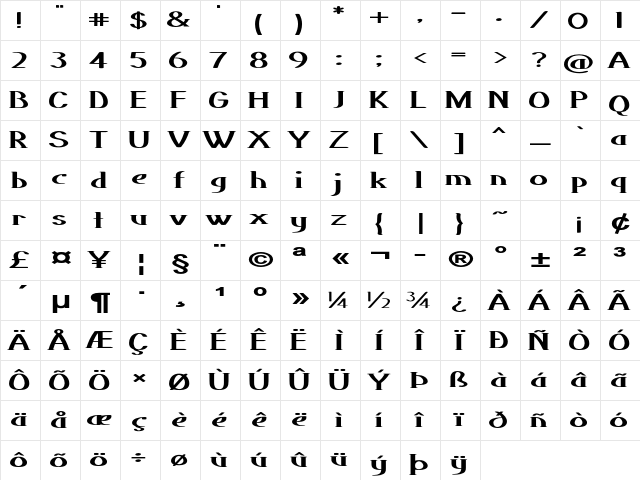
Tunic Extra-expanded Bold Free Font
Tunic Extra-expanded Bold
Style: Extra-expanded Bold
Complete Tunic Extra-expanded Bold glyph index. Displaying only characters natively supported by Tunic Extra-expanded Bold font.
Design Context for Tunic
Tunic is a composed and adaptable typeface that performs quietly and consistently across a wide range of design contexts. Its bold stroke weight gives it real presence on the page.